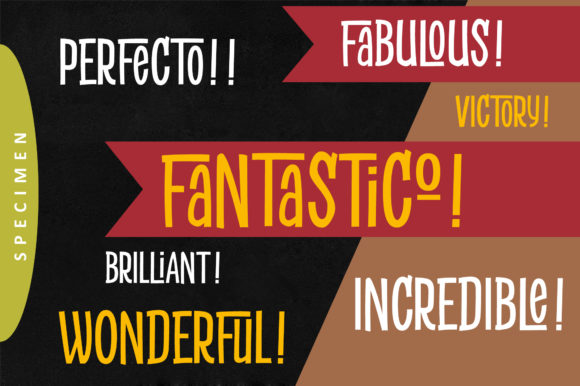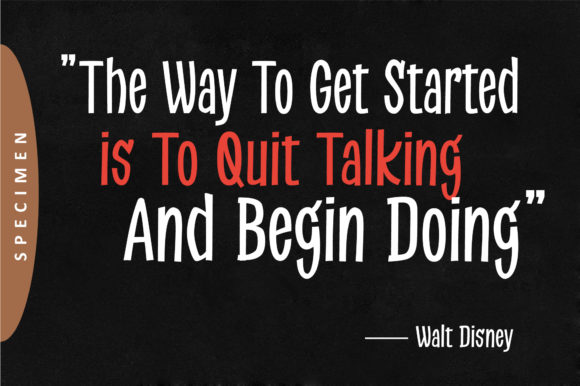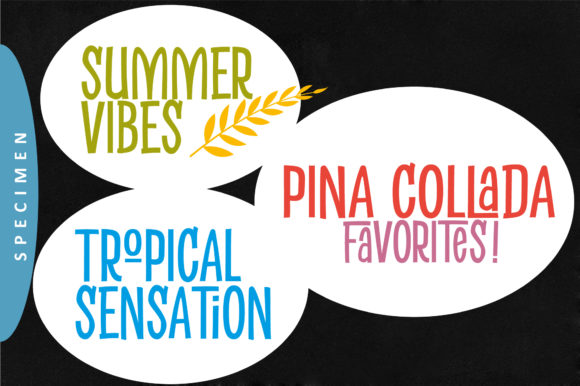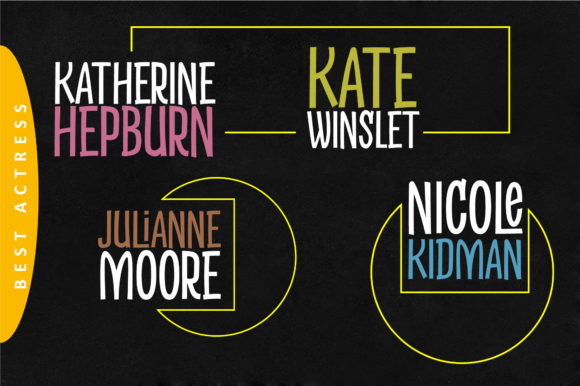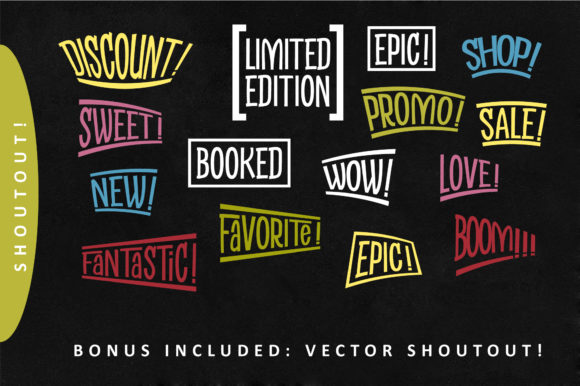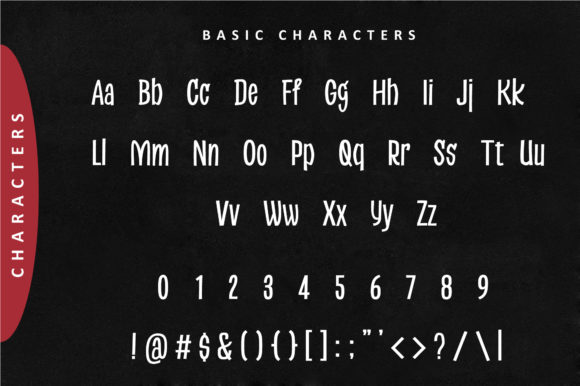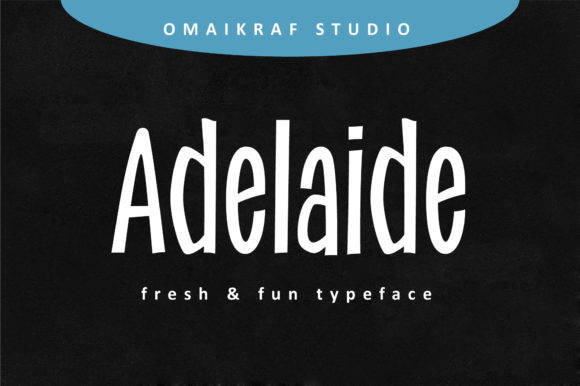
Introducing Adelaide Font: The Ultimate Display Font for Creative Designs
Are you a designer or crafter looking for a font that can add a touch of fun and relaxation to your designs? Look no further than Adelaide Font! This casual and versatile display font is perfect for a wide range of creative projects, from branding and product packaging to invitations, quotes, t-shirts, labels, posters, logos, and more.
What Makes Adelaide Font So Special?
Adelaide Font is a unique and eye-catching display font that is sure to make your designs stand out. Its fun and relaxed vibe makes it perfect for projects that require a friendly and approachable feel. Whether you’re designing a logo, creating a poster, or crafting a label, Adelaide Font is the perfect choice.
Key Features of Adelaide Font
- Casual and Versatile: Adelaide Font is a highly versatile font that can be used for a wide range of designs, from formal to informal.
- Fun and Relaxed: This font has a fun and relaxed vibe that makes it perfect for projects that require a friendly and approachable feel.
- Easy to Read: Adelaide Font is highly legible, making it perfect for designs that require a clear and easy-to-read font.
- Scalable: This font is highly scalable, making it perfect for designs that require a font that can be used at various sizes.
Uses of Adelaide Font
Adelaide Font is perfect for a wide range of creative projects, including:
- Branding: Use Adelaide Font to create a unique and memorable brand identity.
- Product Packaging: Add a touch of fun and relaxation to your product packaging with Adelaide Font.
- Invitations: Create beautiful and eye-catching invitations with Adelaide Font.
- Quotes: Use Adelaide Font to create inspiring and motivational quotes.
- T-Shirts: Design fun and stylish t-shirts with Adelaide Font.
- Labels: Create custom labels with Adelaide Font.
- Posters: Design eye-catching posters with Adelaide Font.
- Logos: Use Adelaide Font to create a unique and memorable logo.
Why Designers and Crafters Love Adelaide Font
Designers and crafters love Adelaide Font for its unique and eye-catching design. This font is perfect for projects that require a friendly and approachable feel. Its highly legible and scalable design makes it perfect for a wide range of creative projects.
Tips for Using Adelaide Font
- Use it for Headings: Adelaide Font is perfect for headings and titles.
- Experiment with Colors: Try using Adelaide Font with different colors to create a unique and eye-catching design.
- Pair it with Other Fonts: Experiment with pairing Adelaide Font with other fonts to create a unique and interesting design.
Adelaide Font is a fun and relaxed display font that is perfect for a wide range of creative projects. Its unique and eye-catching design makes it perfect for designers and crafters who want to add a touch of fun and relaxation to their designs. With its highly legible and scalable design, Adelaide Font is the perfect choice for any project that requires a friendly and approachable feel.